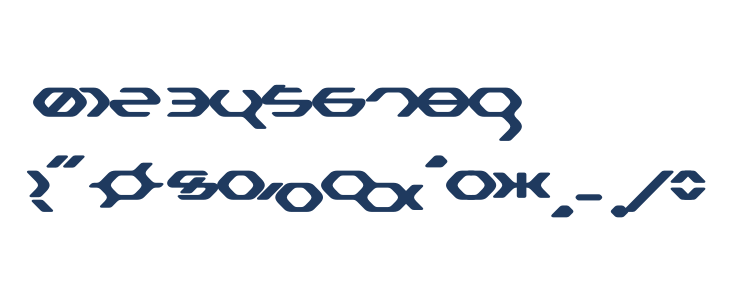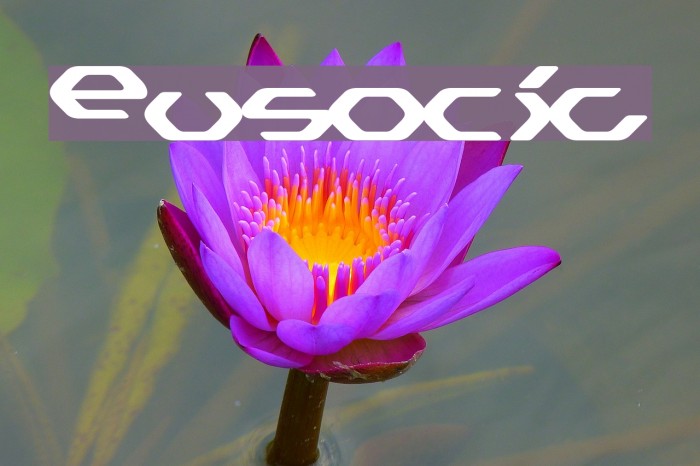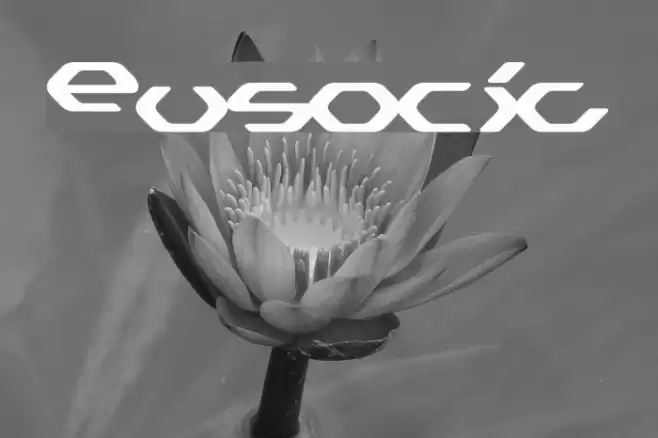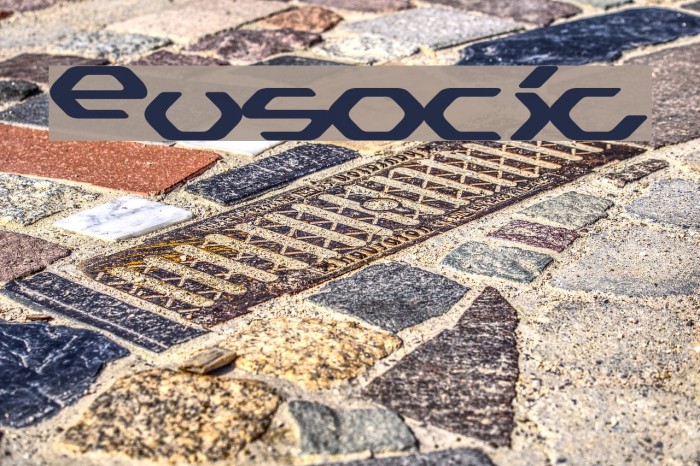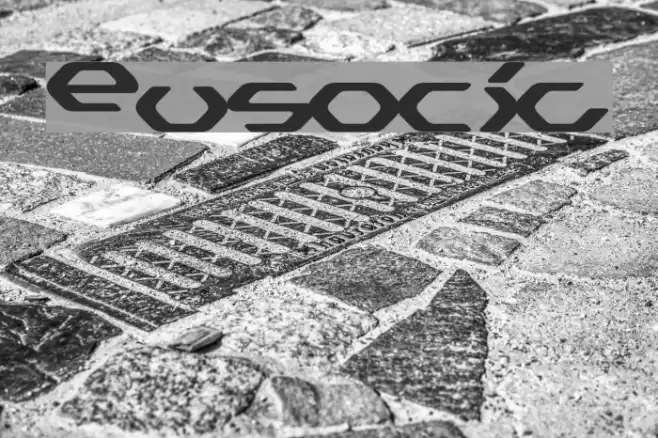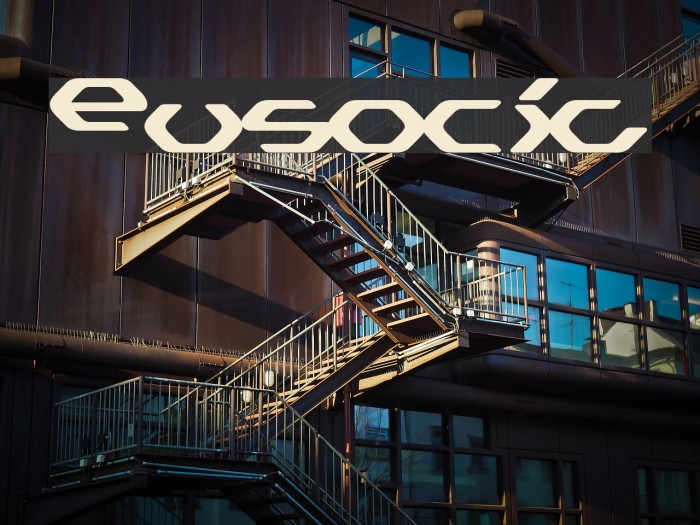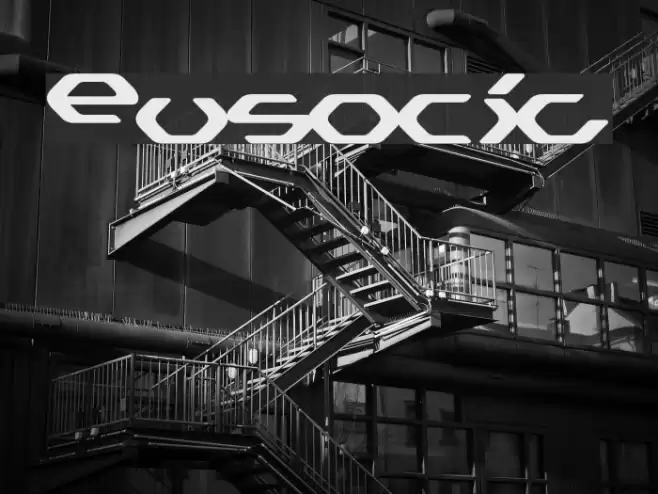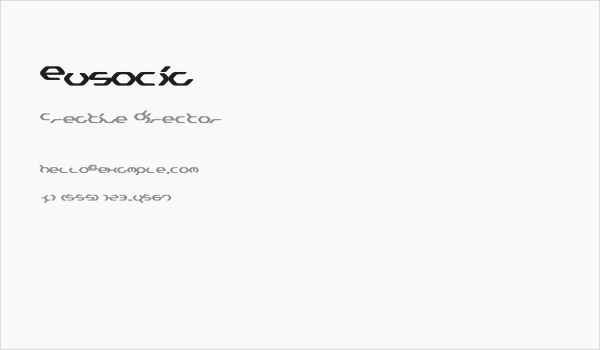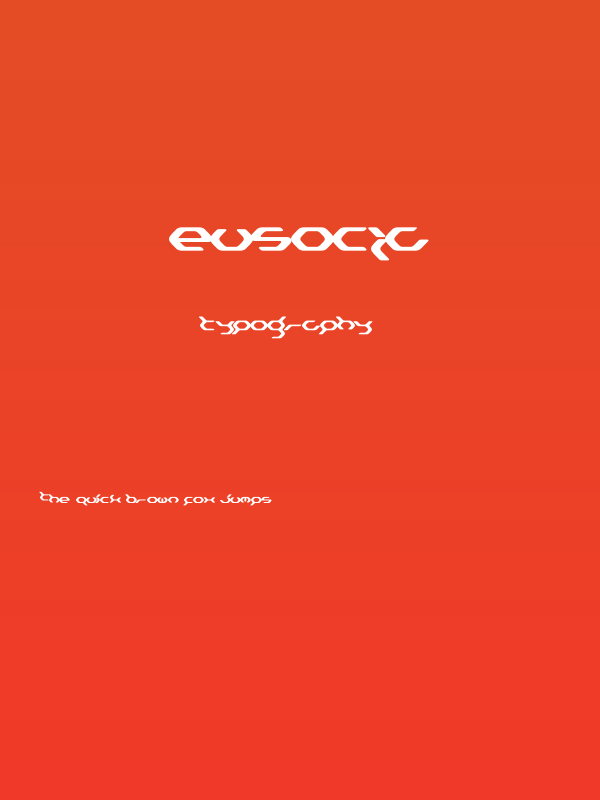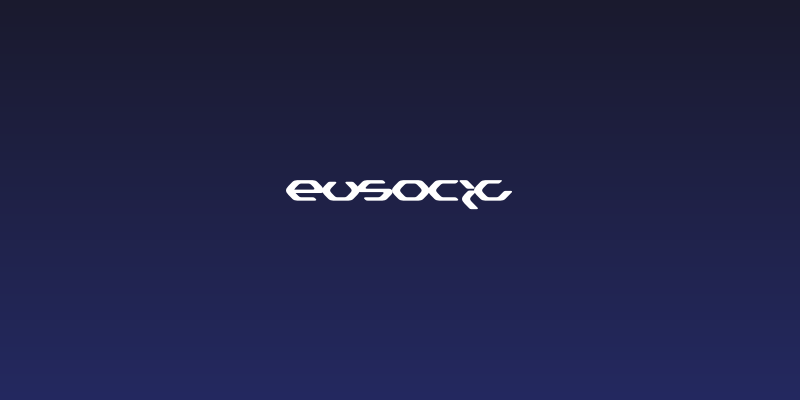
Eusocia Font
Eusocia Description
This font features a futuristic and geometric design with angular and interconnected strokes. The characters are bold and have a distinct, mechanical appearance, making them stand out with their unique structure. The uppercase and lowercase letters share a similar style, maintaining consistency across the alphabet. Numbers and special characters follow the same design principles, ensuring a cohesive look. The font's boldness and geometric shapes give it a strong visual impact, suitable for modern and tech-oriented themes.
| Proposed Projects | Ideal for sci-fi themed projects, technology branding, video game interfaces, and modern posters. |